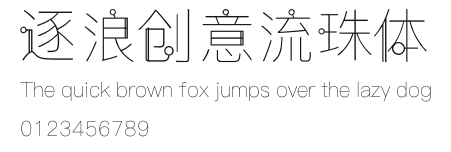
• Font Name: 逐浪创意流珠体
• Font Style: 常规
• Font ID: 逐浪创意流珠体
• Full Font Name: 逐浪创意流珠体
• Version: Version 逐浪创意流珠体1.0
• PostScript Name: ZoomlaLiuzhu-007
• Character Count: 7695
• Designer: hx008COM
• Manufacturer: ShangHai ZoomlaCMS co.,LTD
About 逐浪创意流珠体.otf
逐浪创意流珠体.otf is a modern, elegant sans-serif font designed for ultimate readability and visual harmony. Perfect for branding, headlines, web design, and print materials.